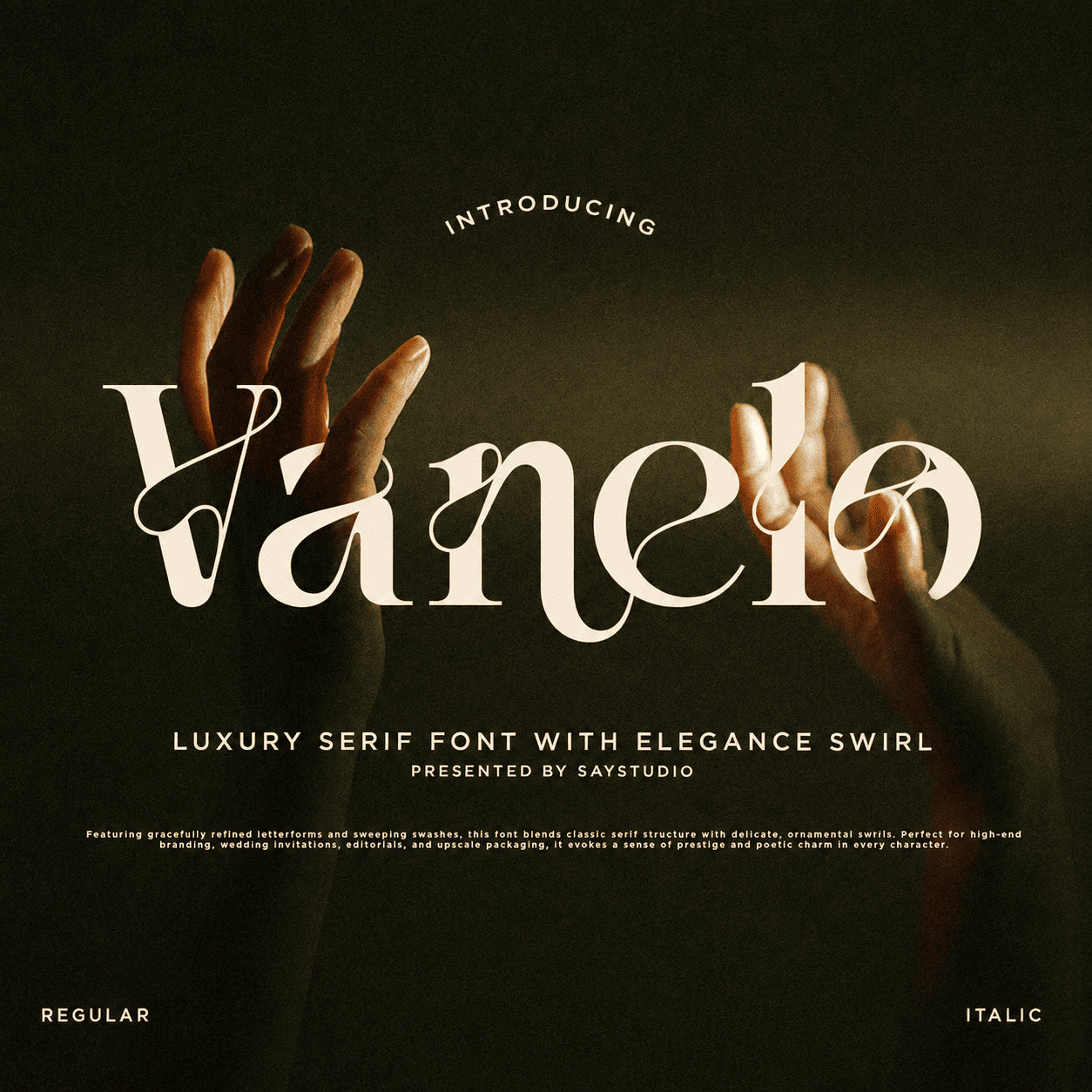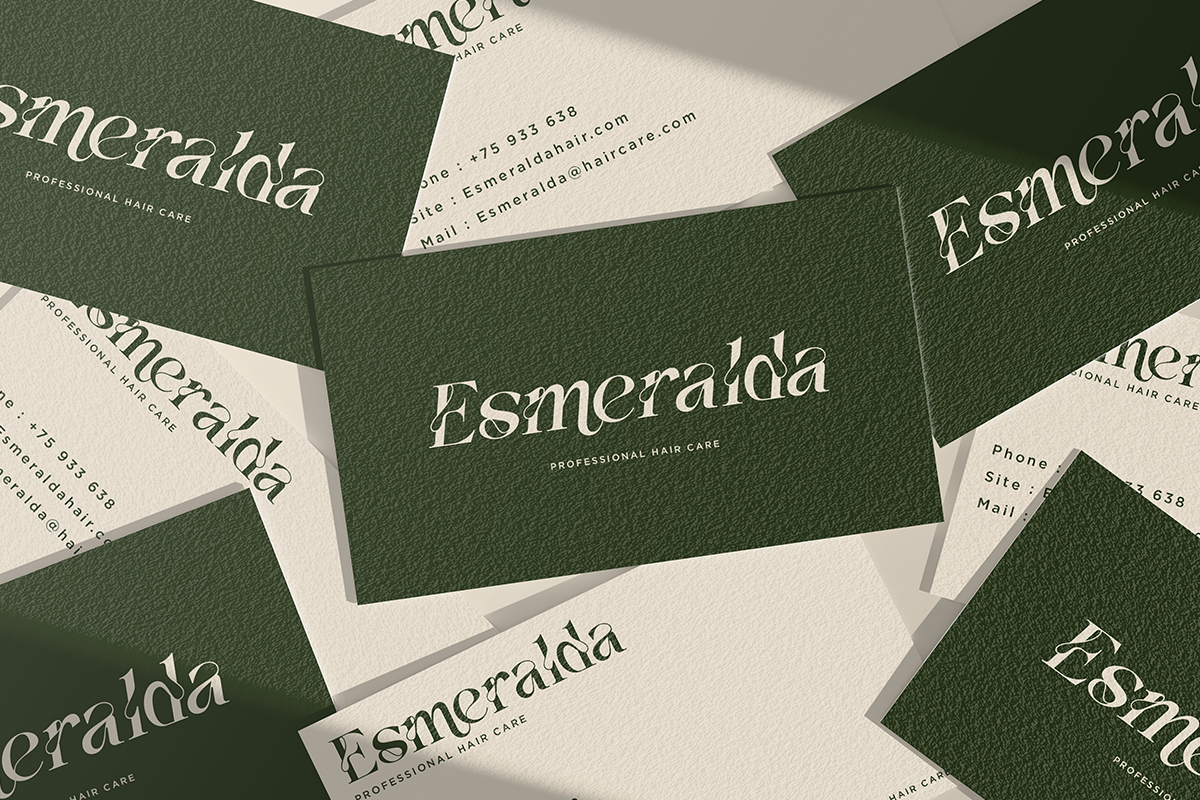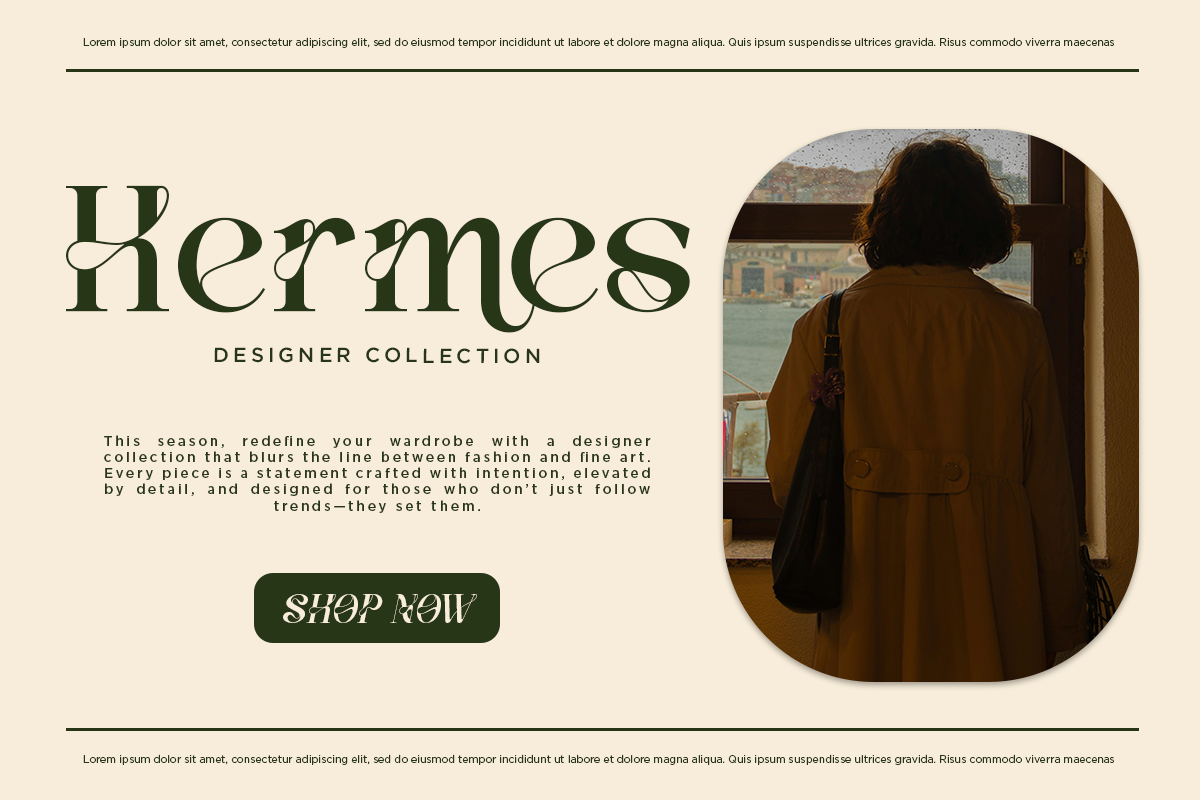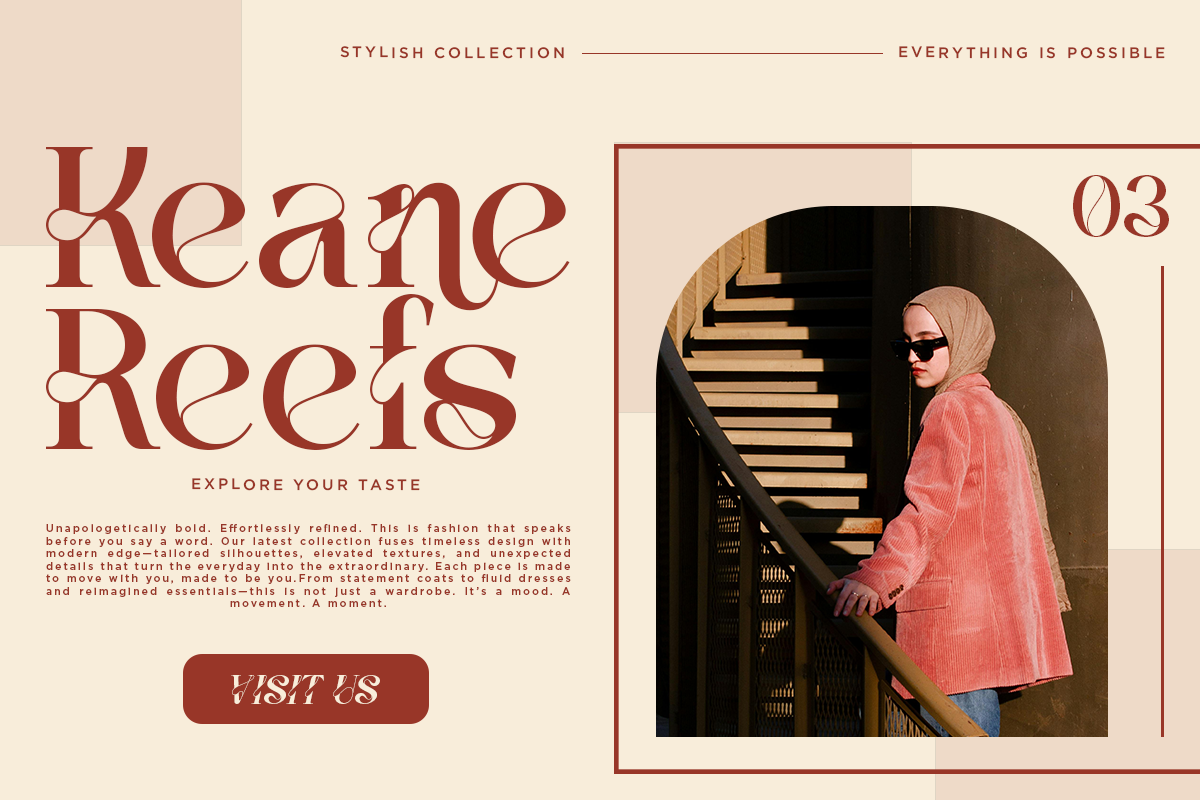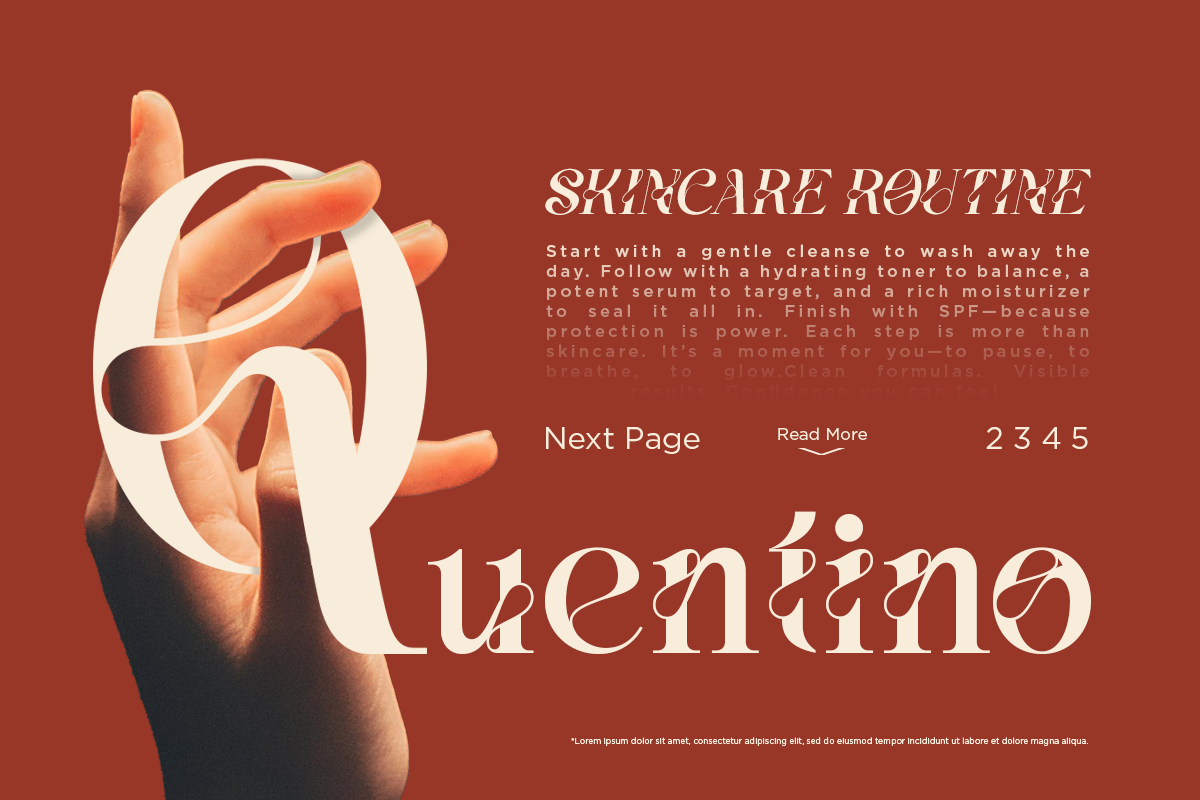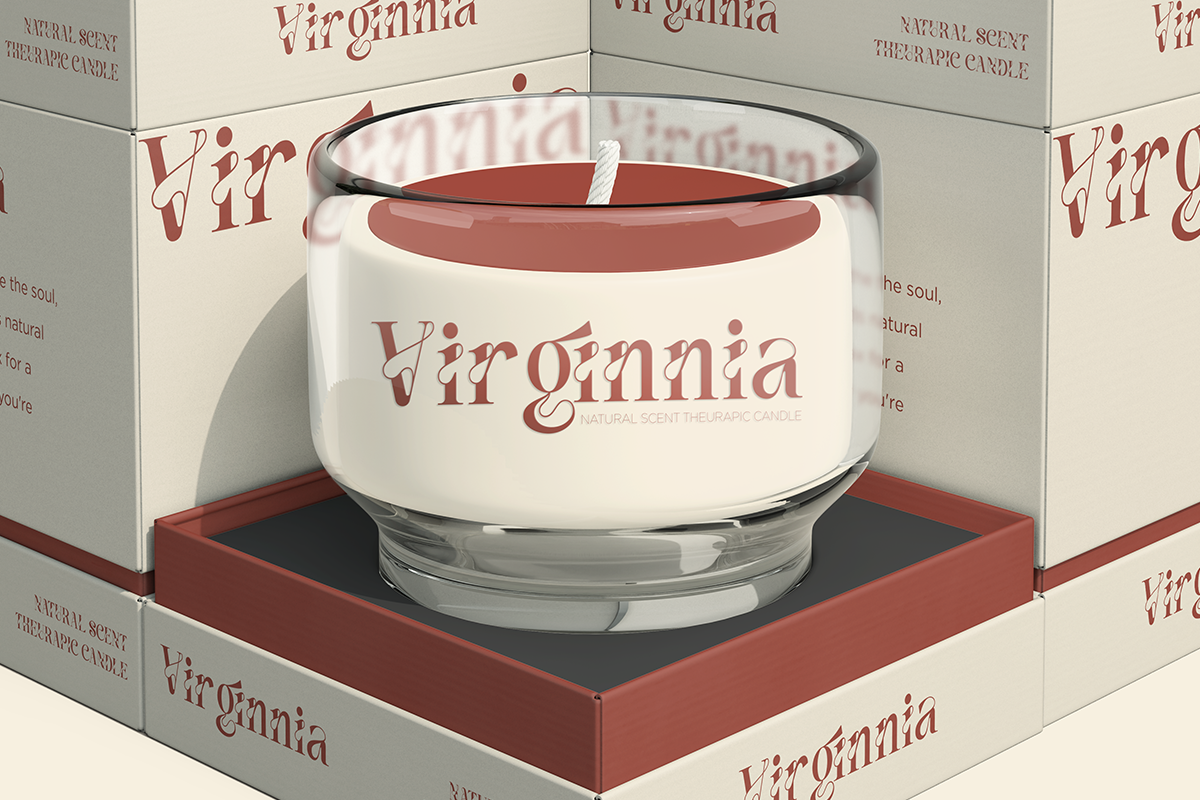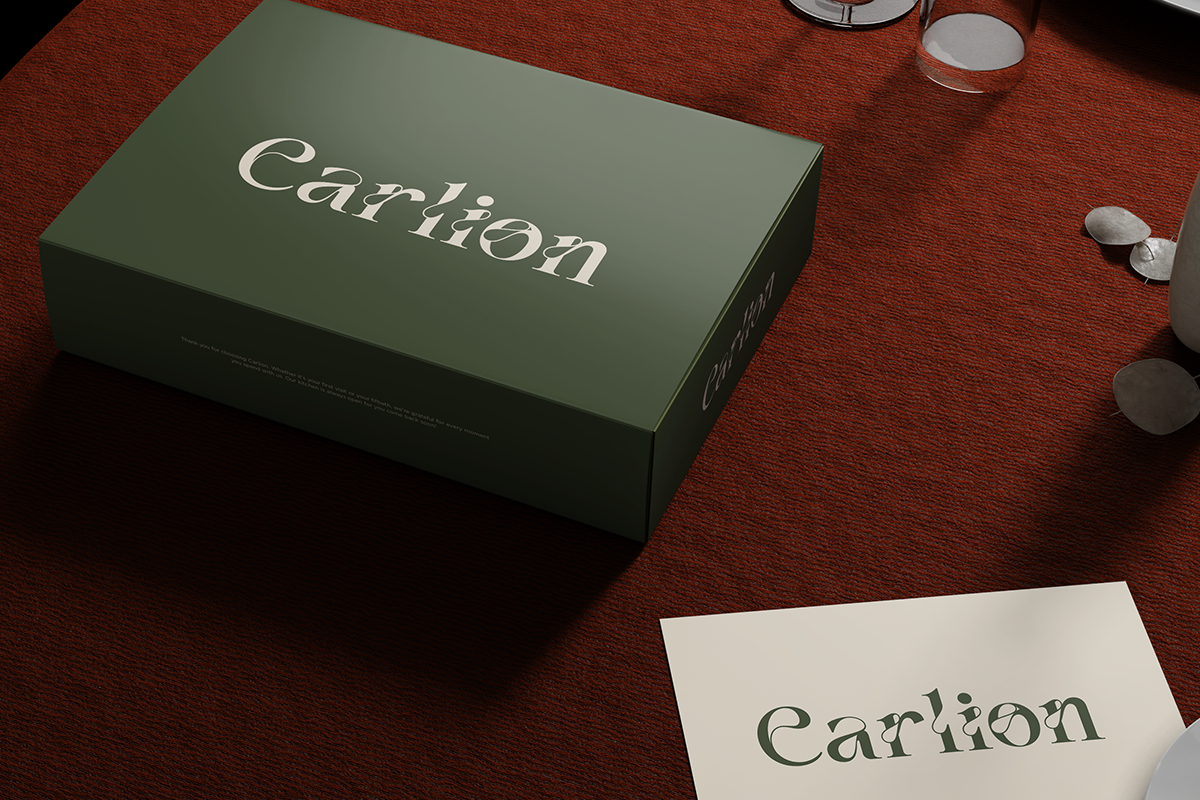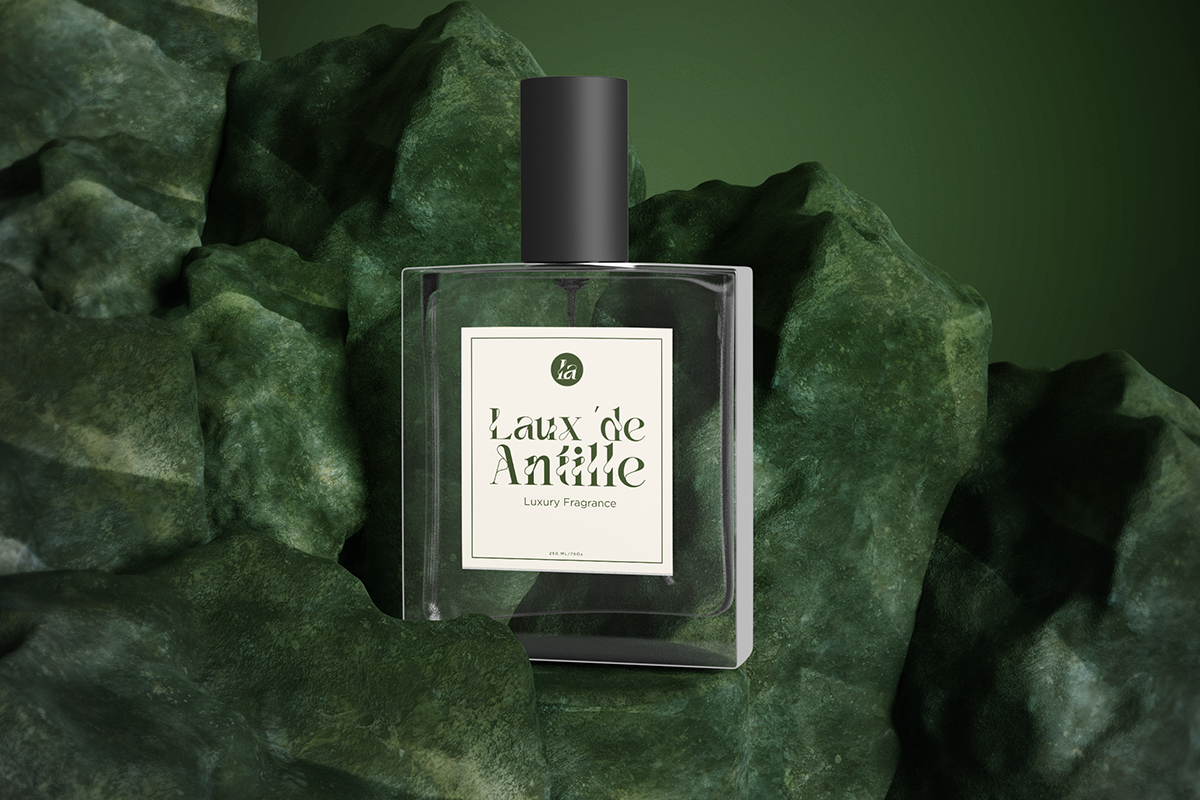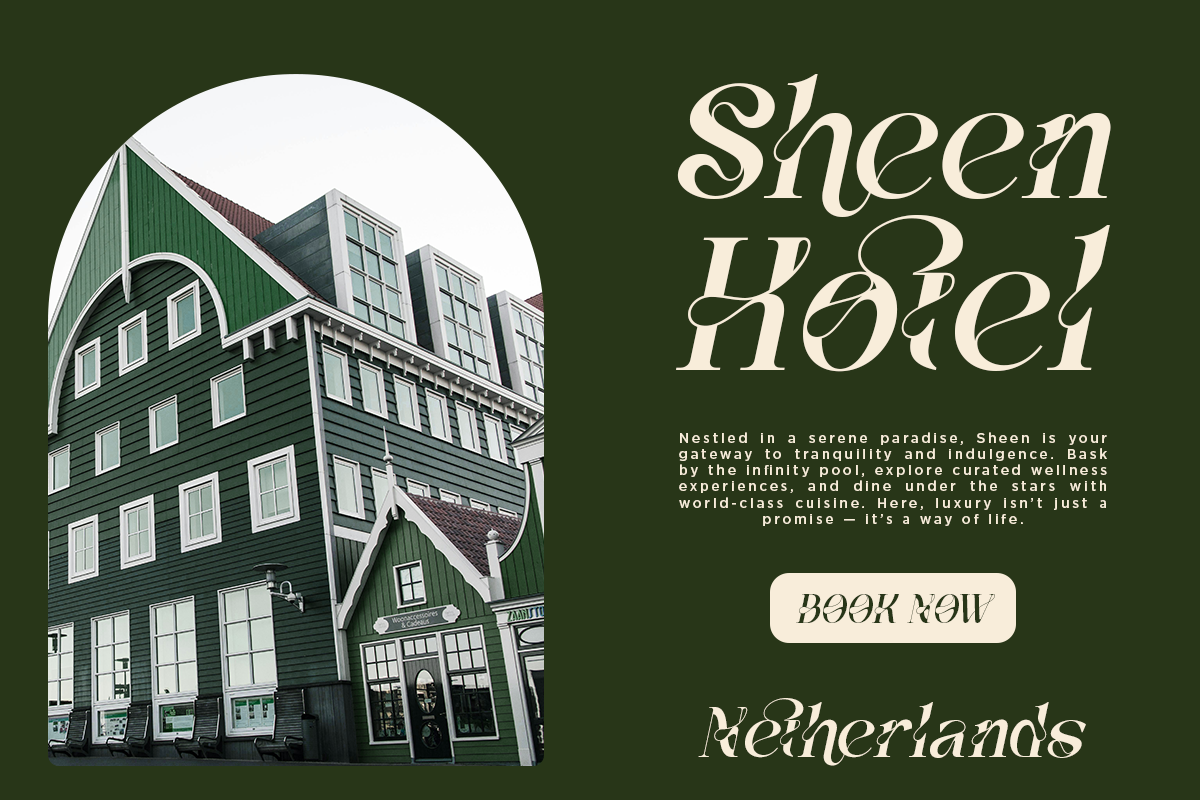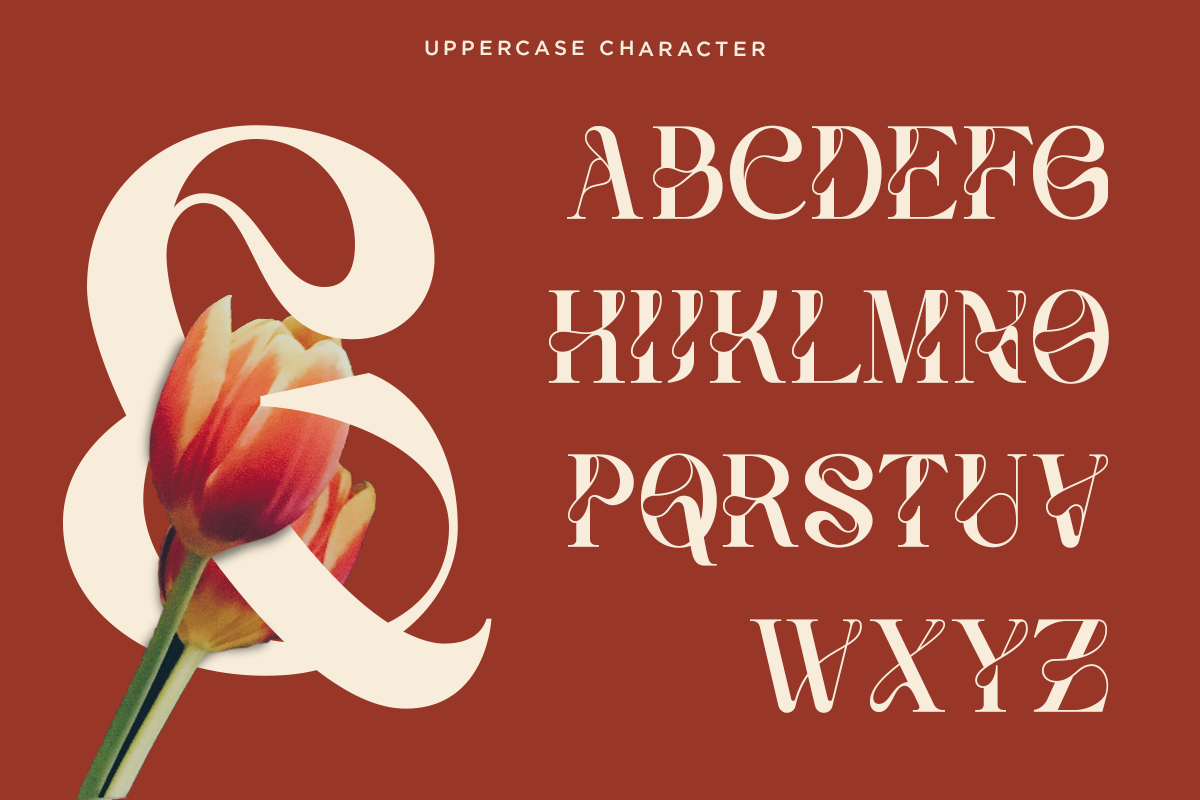
Vanelo - Luxury Logo Serif Font
Vanelo is a sophisticated luxury serif font crafted with elegant curves, refined proportions, and distinctive decorative details. Its graceful letterforms create a stylish and premium appearance, making it an excellent choice for modern designs with a classic editorial touch.
Perfect for fashion branding, luxury logos, editorial layouts, beauty products, wedding stationery, packaging, magazines, posters, invitations, boutique identities, and social media designs.
Vanelo combines timeless serif typography with expressive character, helping your designs stand out with a refined, fashionable, and sophisticated aesthetic. Its elegant display style works especially well for headlines, brand names, titles, and other prominent typography.
Vanelo is a serif font featuring Regular and Italic styles, stylistic alternates, uppercase and lowercase characters, numbers, symbols, and punctuation, with multilingual support. It is available in OTF, TTF, and WOFF formats.